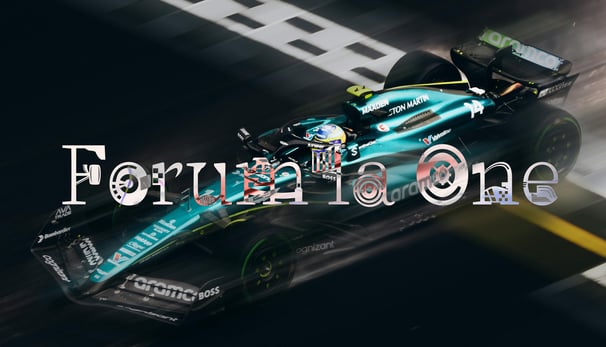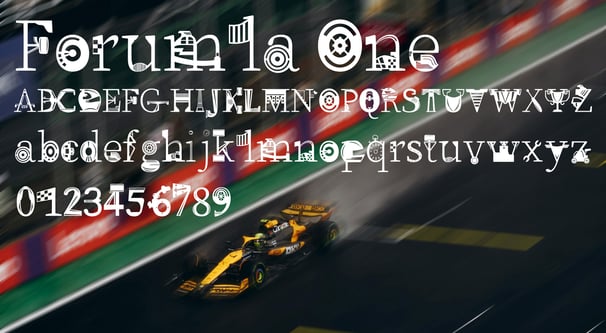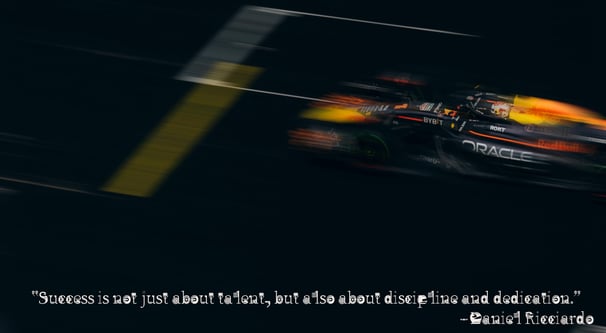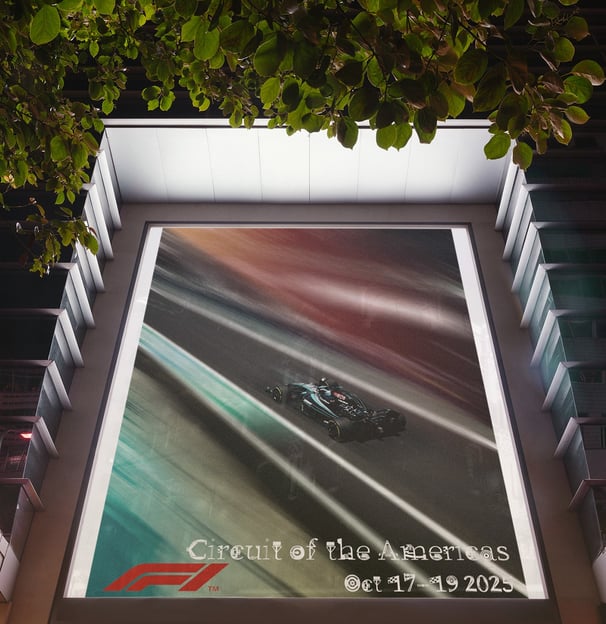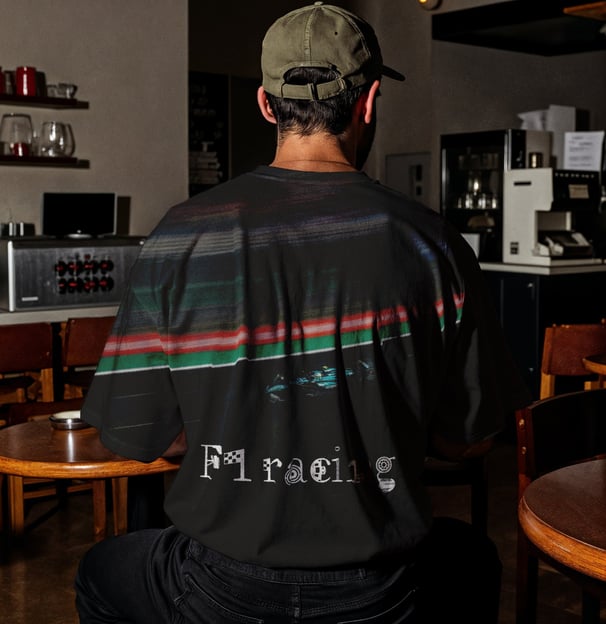
F1 Modified Typeface
Formula One, a high paced, always intense motorsport and one that is the core of this modified typeface. With Source Serif Variable being the base, each letter form, number, mark, symbol, and so on is derived from a element and feature of Formula One. A typeface that can be used for the face of the sport, merchandise, and everything in between.
Designing every character for a full typeface came with its challenges. Especially when designing for such a specific theme, there are only so many times you can incorporate a front wing, tire, helmet and so on into a character. This piece in the end is one to be proud of and one to be pushed even further in the future.